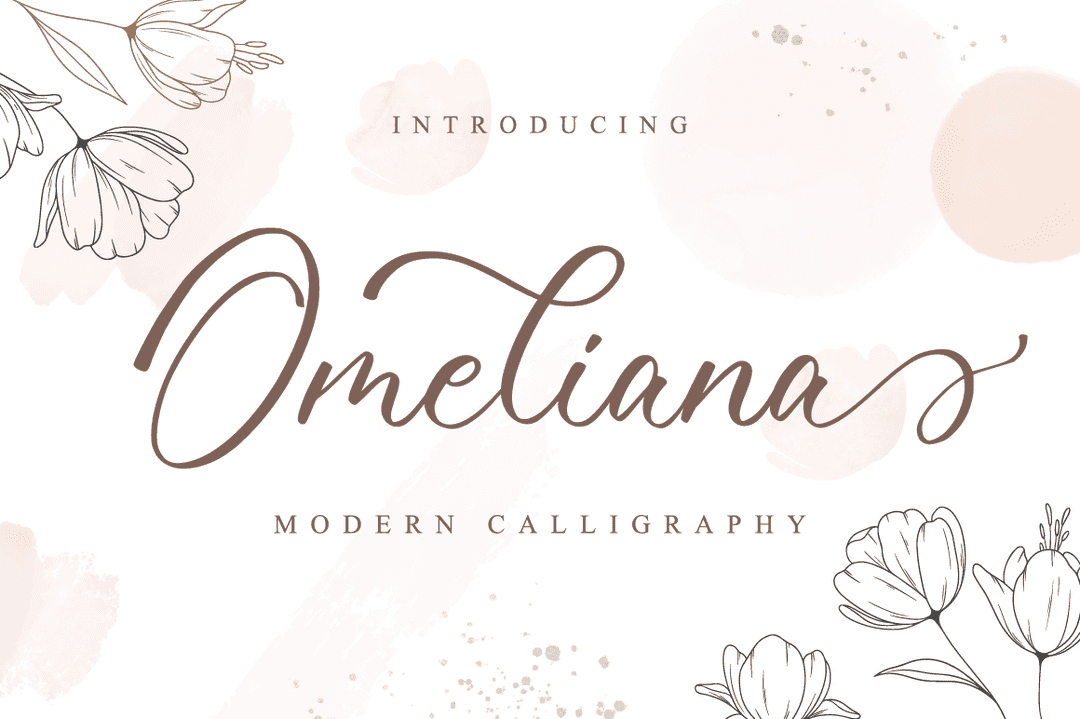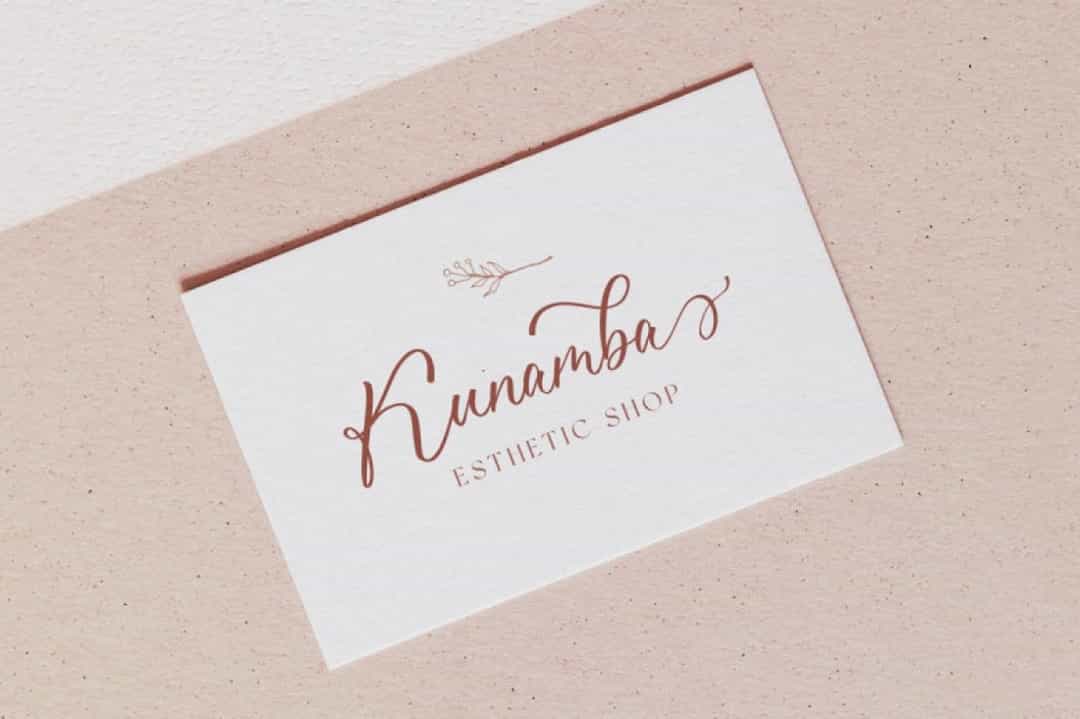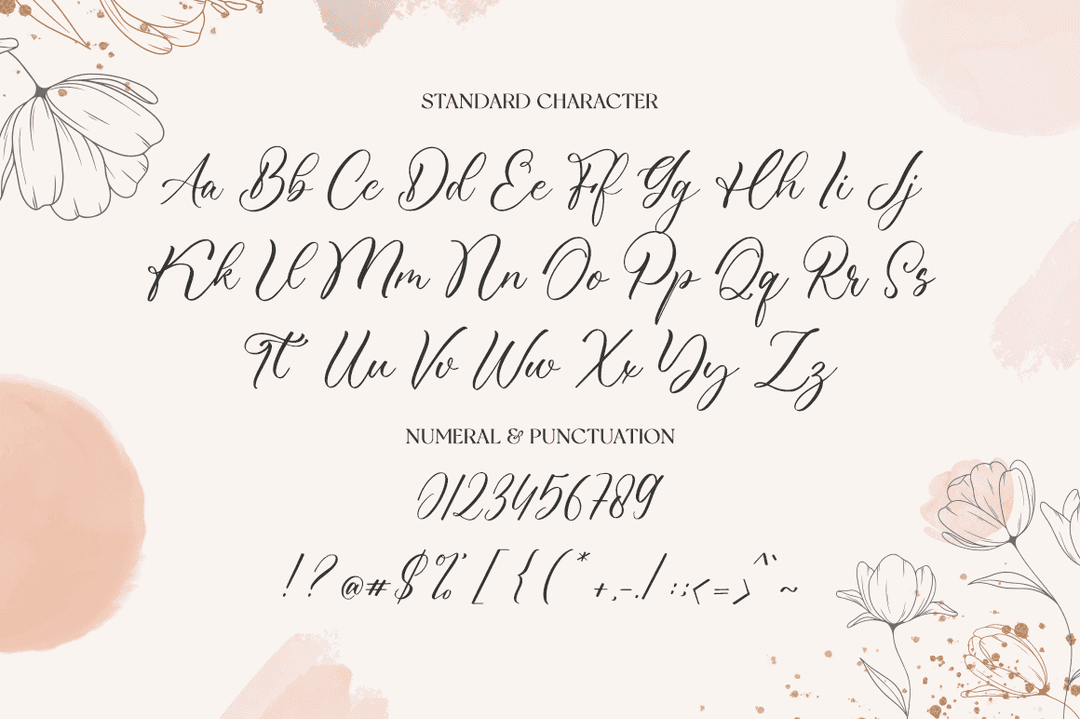
Omeliana Font is an elegant, timeless and delicate handwritten script font. This versatile font works wonderfully when designing wedding cards, thank-you cards, greeting cards, quotes or logos that require handwritten touches.